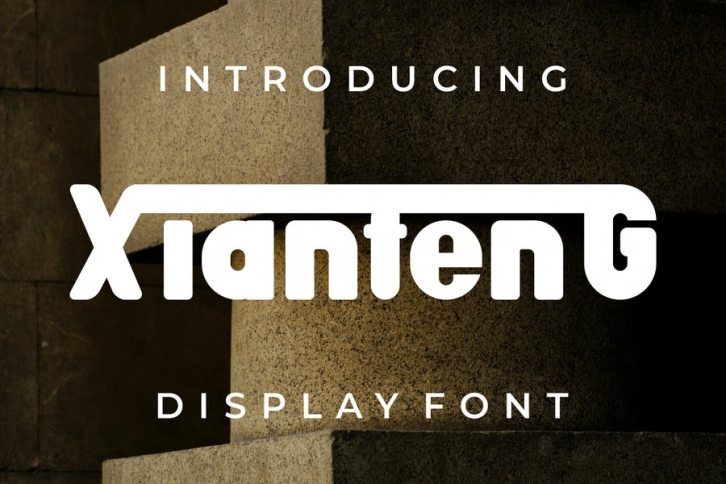
Xianfeng Font Download
Xianfeng Font Font Download
Introducing our new product Varelmo Font - Modern Font
Varelmo Font - Modern Font is a bold and authentic display font. The font is suitable for any branding project like logo, t-shirt printing, esport, and many more. outstanding in a wide range of contexts.